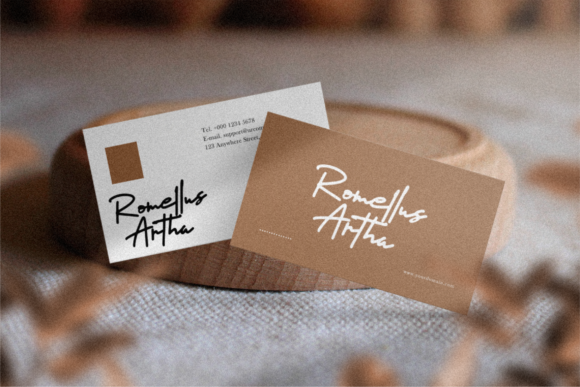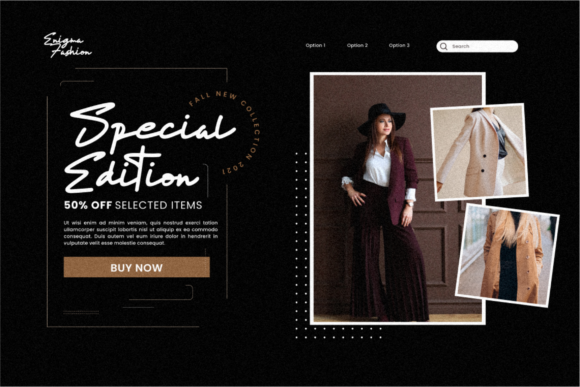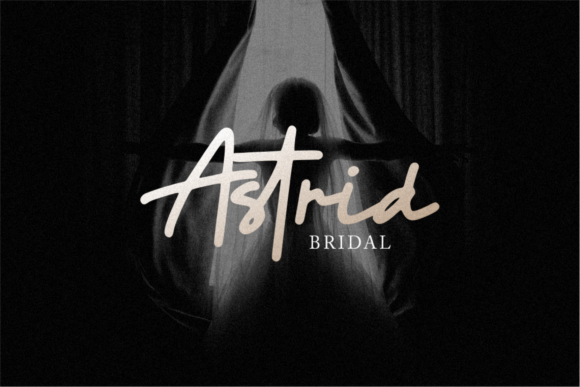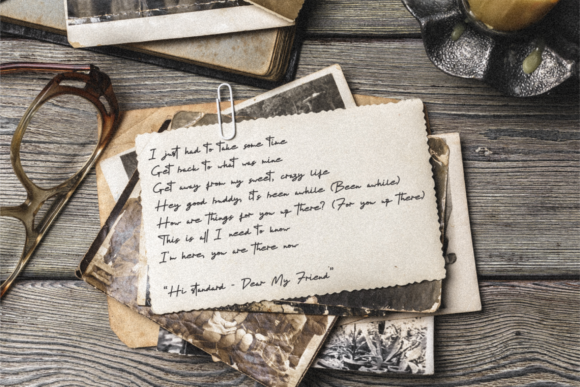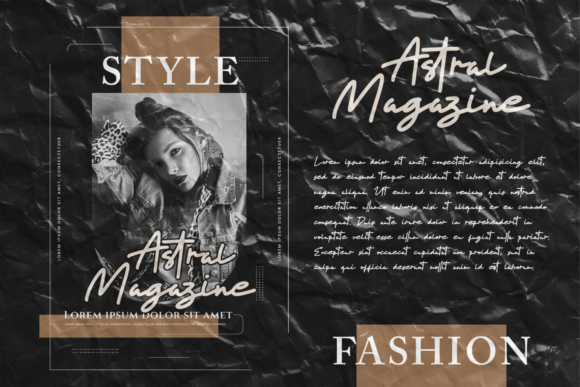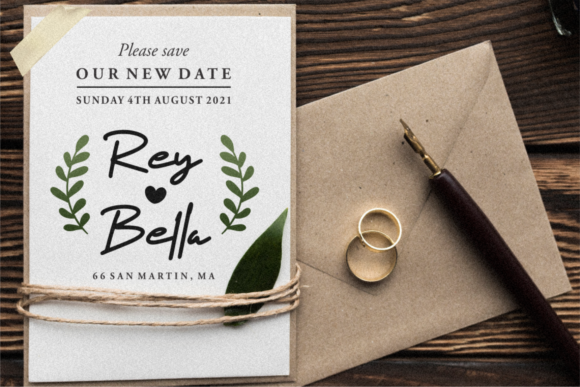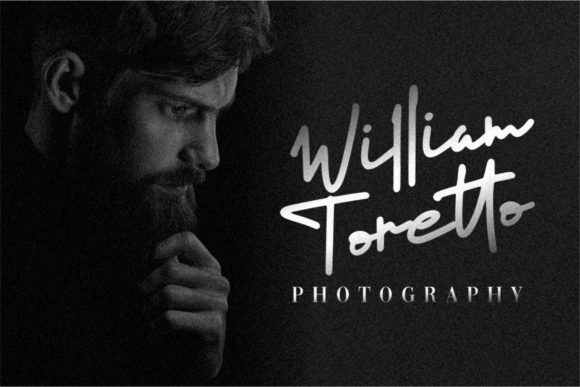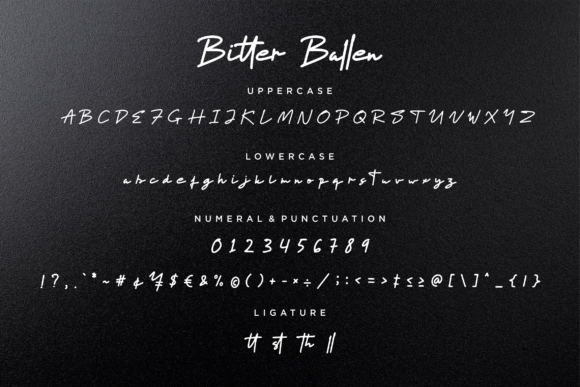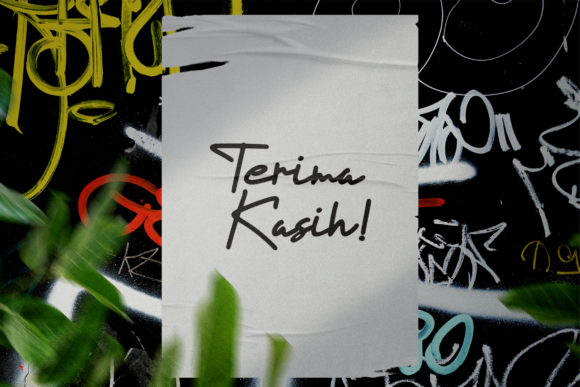
Bitter Ballen Font
About Bitter Ballen Font
Bitter BallenĀ is a fashionable, asymmetric and uniquely designed script font. It adds a nostalgic touch to each of your favorite creations. The only limit is your imagination!